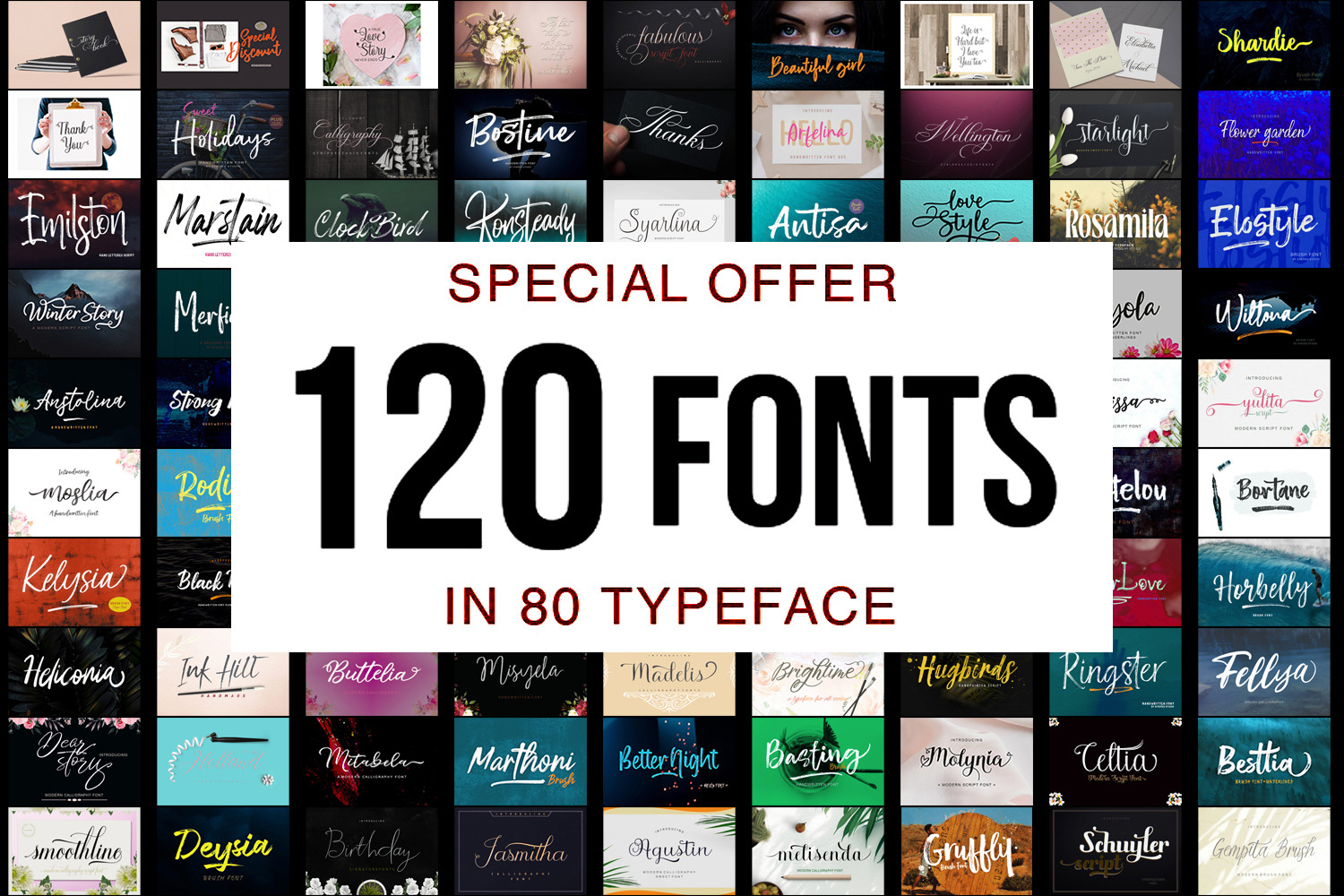
Handwritten Font Bundle
Handwritten Font Bundle – 80 Stunning Handcrafted Fonts for Authentic and Creative Designs
The Handwritten Font Bundle is a carefully curated collection of 80 stunning, handcrafted fonts designed to bring a personal, authentic, and artistic touch to your creative projects. This bundle is perfect for designers, marketers, and creatives who want to infuse their work with the warmth and charm of handwritten typography. Whether you're designing logos, social media graphics, invitations, branding materials, or personal projects, this collection offers a diverse range of styles to suit any need.
From casual and playful scripts to elegant and sophisticated calligraphy, each font in this bundle is crafted to mimic the natural flow of handwriting, adding a unique and human element to your designs. The versatility of these fonts ensures they can be used for a wide variety of applications, making them an essential addition to your design toolkit.
Key Features of the Bundle: 80 Unique Handwritten Fonts: A vast selection of styles, including casual scripts, elegant calligraphy, bold brush fonts, and more.
Authentic Handcrafted Feel: Each font is designed to replicate the natural nuances of handwriting, adding a personal touch to your projects.
High-Quality Design: Meticulously crafted to ensure readability and aesthetic appeal across both print and digital platforms.
What’s Included: This bundle features a wide variety of handwritten fonts, such as:
Casual Scripts: Perfect for adding a relaxed, friendly, and approachable vibe to your designs.
Elegant Calligraphy: Ideal for weddings, invitations, and branding with a sophisticated and refined touch.
Bold Brush Fonts: Great for creating eye-catching headlines, posters, and social media graphics.
Playful Handwritten Styles: Add a fun, whimsical, and creative element to your projects.
Minimalist Handwriting: Clean and simple fonts for a modern and understated look.
Artistic and Grunge Styles: Unique and textured fonts for adding a creative and edgy feel.